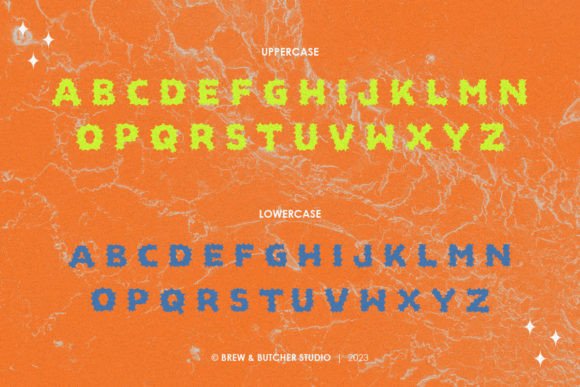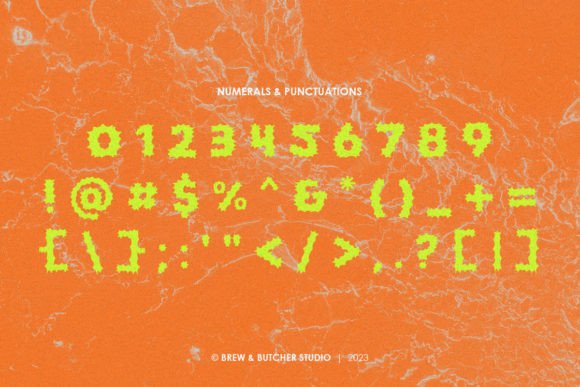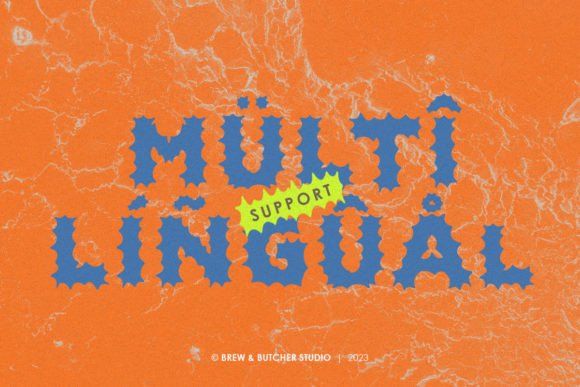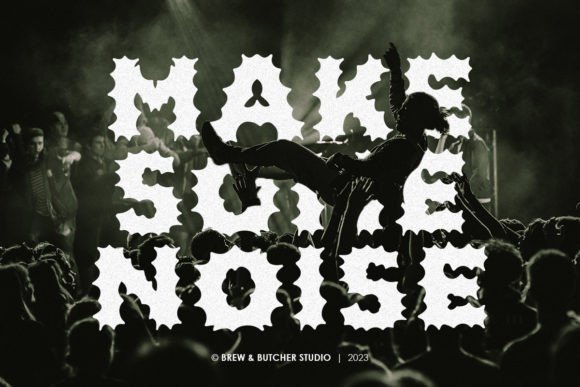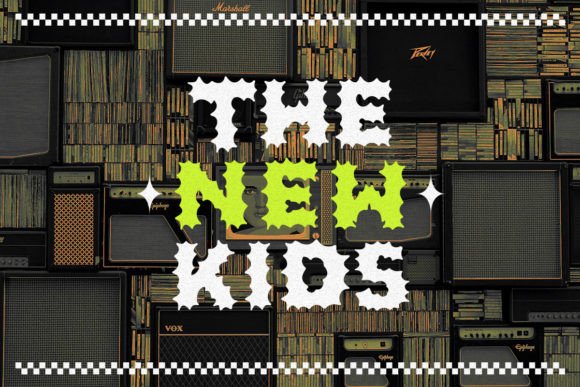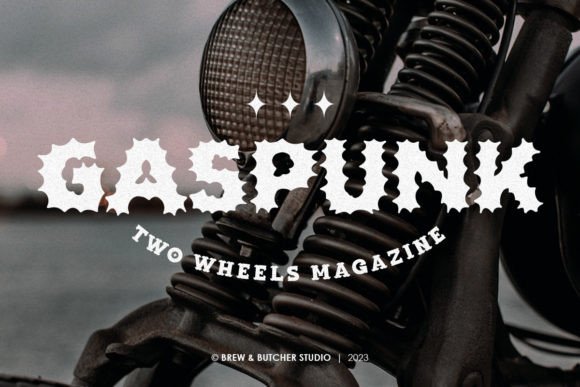
Introduction to Punkats Font
Have you ever been stuck on a creative project, desperately searching for that perfect design resource to bring your idea to life? I’m sure many of us have been there, scrolling through endless font options, trying to find that one gem that will elevate our work. That’s where Punkats Font comes in – a delightful, charming display font that’s sure to brighten up even the most mundane designs.
What makes Punkats Font so valuable to designers is its versatility and charm. With its whimsical and quirky feel, it’s the perfect addition to any project, from children’s book illustrations to social media graphics. Whether you’re looking for a free download or a high-quality font to purchase, Punkats Font is a great choice. Plus, its transparent background makes it easy to work with, allowing you to focus on the creative aspects of your project.
Punkats Font Key Features
- Unique Hand-Drawn Style: Punkats Font offers a distinctive hand-drawn design perfect for creative projects requiring a personal touch.
- High-Quality Design: The font features high-quality design elements, ideal for use in various design resources, including logos, branding materials, and more.
- Perfect for Creative Projects: Punkats Font is an excellent choice for creative projects, such as graphic design, web design, and advertising, where a unique and eye-catching design is essential.
Honest Review: Punkats Font
I recently stumbled upon the Punkats Font while searching for a unique design resource to elevate my creative project. The first thing that caught my attention was the quirky and playful vibe it exudes, making it perfect for anything from branding to digital art.
- Quirky style: The Punkats Font has a one-of-a-kind aesthetic that’s hard to find elsewhere.
- High-quality glyphs: The font is meticulously designed with crisp, clear characters that are a joy to work with.
While the Punkats Font is a great design resource, it’s not without its limitations. One notable issue is the lack of a transparent background option, which can be inconvenient when working with layered designs.
Overall, the Punkats Font is a fun and versatile addition to any creative project. Its quirky style and high-quality glyphs make it a great choice for designers looking for a unique touch. However, the lack of a transparent background option is a drawback that may deter some users.
Punkats Font
Introduction to Punkats Font
Punkats Font is a high-quality design resource perfect for creative projects. It’s available for free download and features a transparent background, making it versatile for various applications.
Tips for Getting the Most Out of Punkats Font
Experiment with different font sizes, colors, and styles to create a unique look. Combine Punkats Font with other design elements to create a visually appealing design. Use the transparent background feature to create a sense of depth and dimension.
Punkats Font is perfect for creative projects such as logos, business cards, posters, flyers, social media graphics, and presentations. It’s also suitable for designing documents, reports, and other professional materials that require a unique and eye-catching font.
Does Punkats Font have a transparent background?
Punkats Font comes with a transparent background, making it easy to use in various design scenarios. This feature allows you to overlay the font on top of images or other design elements without worrying about background issues.